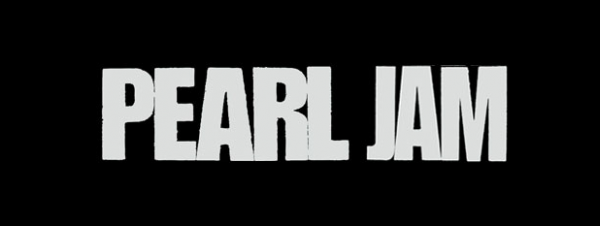
Pearl Jam Font
BandPearl Jam is an American rock band that formed in Seattle, Washington, in 1990.
The above is the first Pearl Jam logo as seen on their 1991 debut album Ten. The logo features the band name in a narrow sans serif in all capital letters. The font used is probably Impact.
Pearl Jam logo in wooden type lettering in all lowercase letters, appeared on their second album Vs.. The font used is P22 Woodtype.
Pearl Jam logo seen on their 1998 album Yield, set in a square sans named Eurostile.
From their self-titled 2006 album, probably a custom logo.
Pearl Jam logo with circled letters, as seen on their Backspacer, released in 2009. There is a fan-made font available for you to recreate this logo with a similar feel, though the font letters don’t match those of the cover, which take on a more rounded look. You can download the font for free here.
The logo from their tenth studio album, Lightning Bolt, released in 2013, features the logo in a geometric rounded font. The closest font that can be found is Neometric, download it for free here.